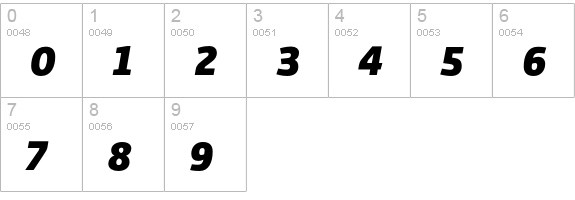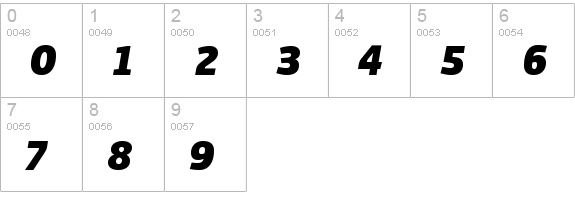
Vinkel Black Italic Font Details
Vinkel Black Italic is a maximum-weight, dramatic, italic variant in the Vinkel typeface family \xE2\x80\x94 well suited to maximum-impact headlines, posters, and packaging.
Vinkel Black Italic is a stylish and modern font that exudes sophistication and elegance. With its sleek lines and bold curves, this typeface is perfect for adding a touch of sophistication to any design project. The italicized version of Vinkel Black adds a dynamic flair to text, making it stand out and grab attention. What makes Vinkel Black Italic even more appealing is that it is available for free download at FontsMarket.com. This means that you can easily access this high-quality font without any cost, making it a valuable addition to your font library. Whether you're working on a branding project, website design, or any other creative endeavor, Vinkel Black Italic is sure to elevate your work with its contemporary and refined aesthetic.